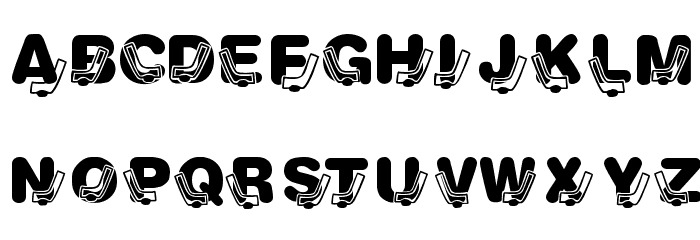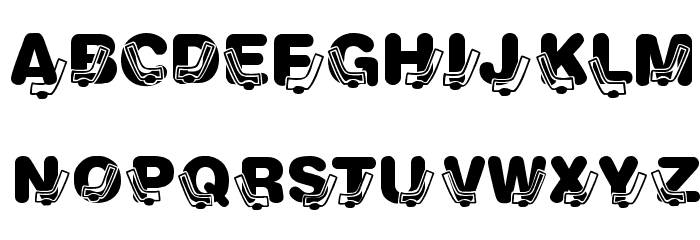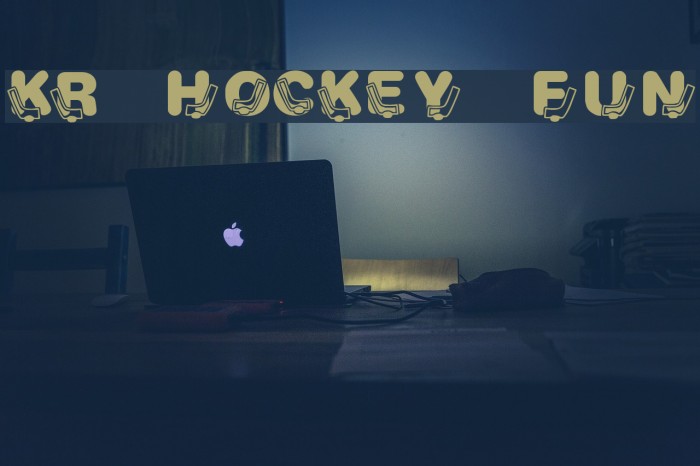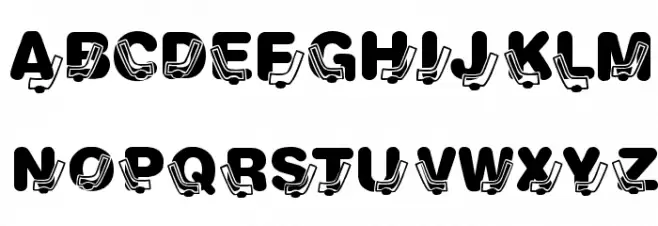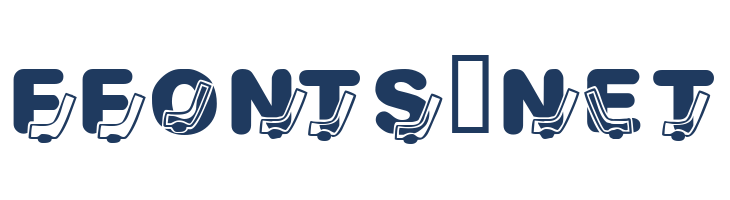
KR Hockey Fun Font
This playful and dynamic font features bold, uppercase letters with a unique hockey-themed design. Each character incorporates elements reminiscent of hockey sticks and pucks, creating a sporty and energetic feel. The letters are robust and slightly condensed, with a consistent stroke width that maintains readability while adding a decorative flair. The font's design is perfect for projects that aim to capture the excitement and spirit of hockey, making it ideal for sports-related branding, event posters, and merchandise. Its distinctive style ensures that any text stands out with a fun and engaging appearance.
A bold, hockey-themed decorative font with sporty elements.
- Proposed Projects: Ideal for sports branding, event posters, merchandise, and playful designs.